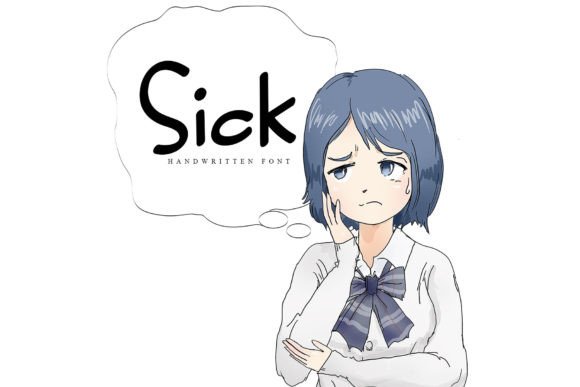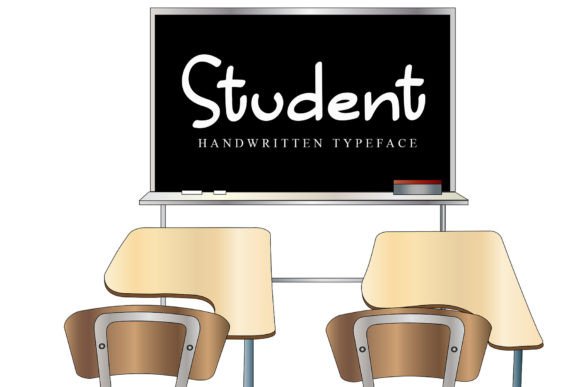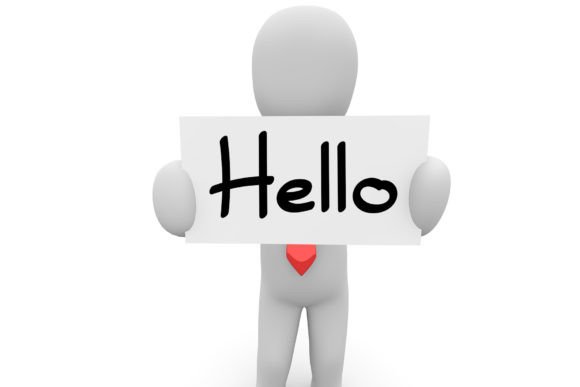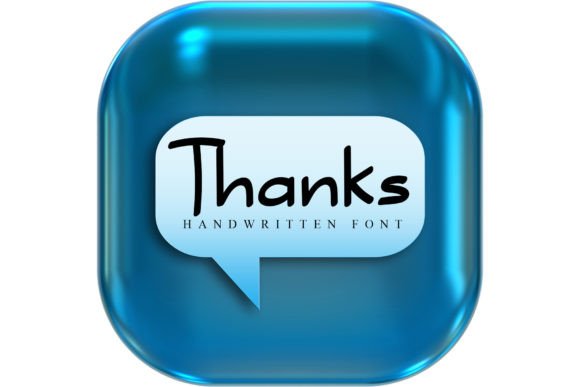
Introduction to Raka Font Font
Fonts play a crucial role in design, and the Raka Font font is a typeface that brings both character and versatility to any project. Whether you’re working on a branding project, a website, or a print design, the Raka Font font offers a unique style that can elevate your work.
Raka is a unique and elegant handwritten font.
It looks great on wedding invitations, greeting cards, billboards, logos, business cards, and any other design that requires a handwritten touch This font is PUA encoded which means you can access all glyphs and swashes with ease.
Key Features of Raka Font Font
Why Choose Raka Font Font?
The Raka Font font is more than just a typeface – it’s a design tool that helps you communicate your message with style and clarity. Its unique character set and versatile design make it suitable for a wide range of applications, from elegant invitations to bold headlines.
With its carefully crafted letterforms and balanced proportions, the Raka Font font ensures readability and visual appeal across all mediums.
What makes Raka Font font special?
The Raka Font font stands out with its unique design, exceptional readability, and versatility across various design applications.